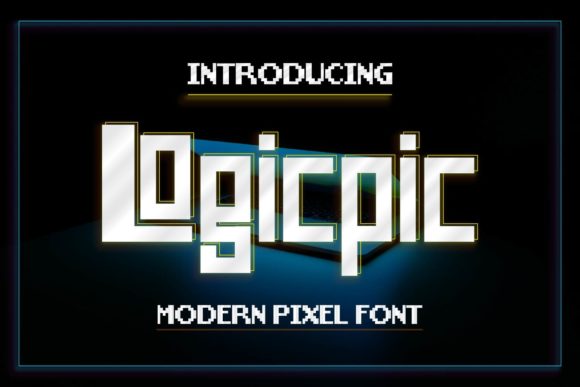
Introducing Logicpic Font - The Epitome of Modern Logo Design
In a world where first impressions matter, Logicpic Font emerges as a game-changer for logo designers seeking a cutting-edge aesthetic. This remarkable display font possesses an assertive, robotic charm that commands attention, making it the perfect choice for creating logos that exude modernity and innovation.
Unleash Your Creativity with Endless Possibilities
Logicpic Font is more than just a font; it's a gateway to a world of creative possibilities. Whether you're designing sleek web designs, crafting professional business cards, or exploring countless other design projects, Logicpic Font stands ready to elevate your work to new heights.
Forge a Connection with Your Audience through Distinctive Design
In the digital age, where attention spans are fleeting, Logicpic Font empowers you to forge an instant connection with your audience. Its unique and captivating style cuts through the noise, ensuring your logos leave a lasting impression. Prepare to witness increased engagement and recognition as your brand identity takes center stage.
Experience the Future of Font Design Today
Logicpic Font represents the cutting edge of font design, beckoning you to embrace the future of creativity. Don't settle for ordinary fonts that blend into the background. Instead, embrace the boldness and innovation of Logicpic Font and watch as your designs transform into works of art.